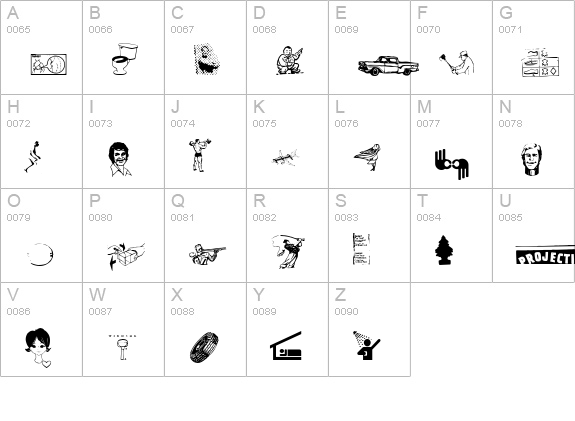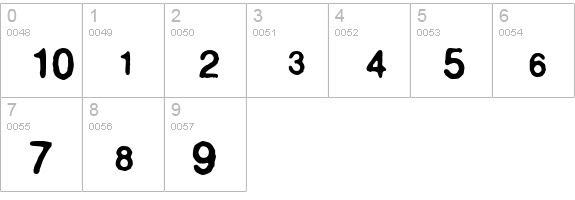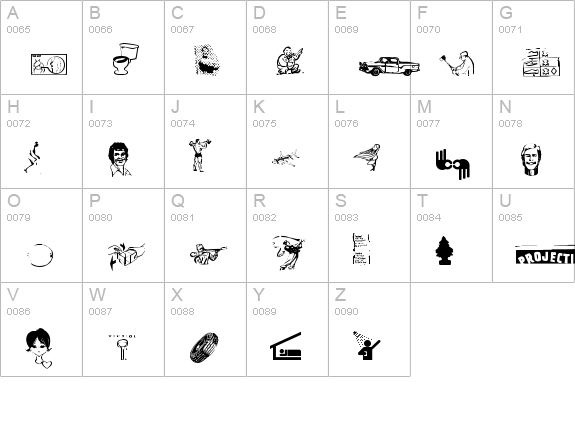
FinalDingbat1 Font Details
FinalDingbat1 font is a whimsical and playful typeface perfect for adding a touch of fun to your designs. This font features a wide range of decorative dingbats and symbols that can be used to enhance your projects in a unique way. Whether you're working on invitations, posters, or social media graphics, FinalDingbat1 font is sure to make your designs stand out. The best part? FinalDingbat1 font is completely free to download at FontsMarket.com. With just a few clicks, you can add this creative font to your collection and start using it in your projects right away. Don't miss out on this fantastic opportunity to access a high-quality font at no cost. Download FinalDingbat1 font today and let your creativity shine!